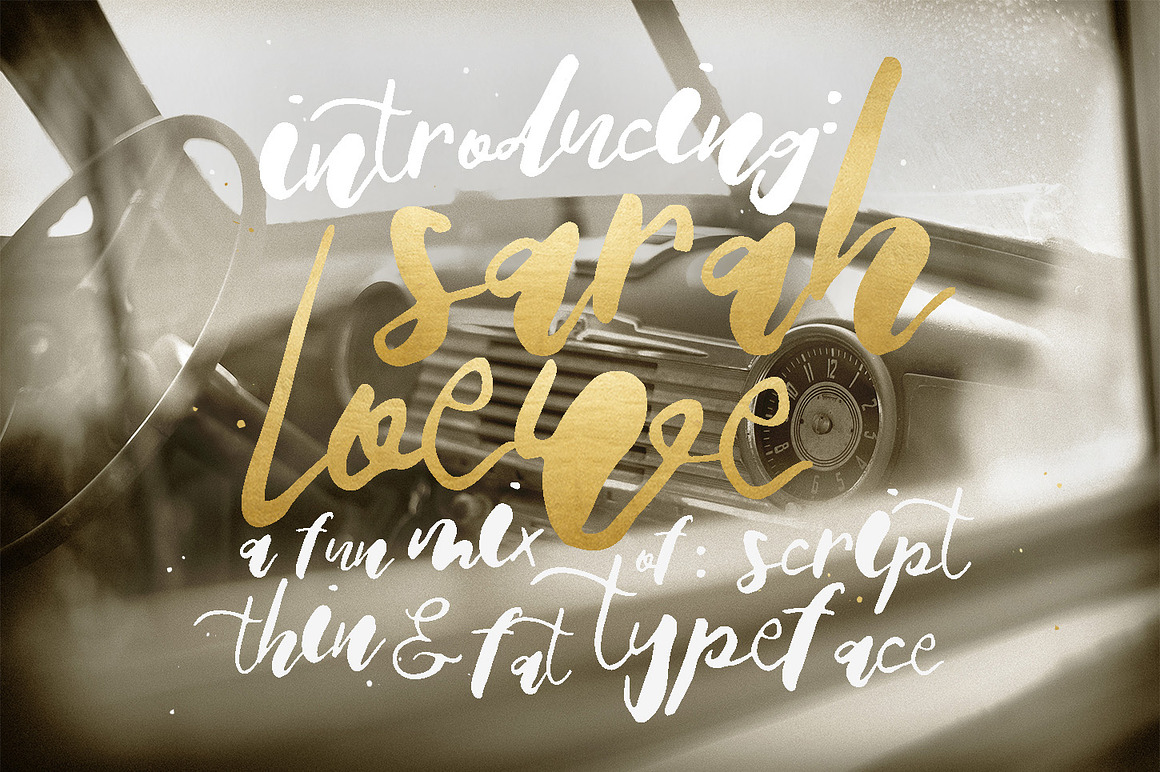
Sarah Loewe Script Font
Sarah Loewe Script Font is perfect for luxury fashion branding, high-end boutique signage, elegant wedding stationery, premium beauty product packaging, sophisticated lifestyle magazines, exclusive event invitations, upscale restaurant menus, and refined personal branding.
What makes Sarah Loewe Script Font exciting is its sophisticated elegance that embodies luxury and personal refinement. The font features graceful letterforms with flowing curves and aristocratic flourishes that create an atmosphere of exclusivity and timeless beauty. Its meticulously crafted character variations and haute couture styling communicate prestige, sophistication, and discerning taste, making every message feel like a personalized signature from the world of luxury fashion and high society.
The Sarah Loewe Script Font family includes regular weight with uppercase and lowercase letters, numerals, punctuation marks, and special characters. Premium versions often feature stylistic alternates, elegant ligatures, and decorative swashes that provide additional creative options for luxury branding applications.
This exquisite script typeface brings instant prestige and fashion-forward sophistication to any luxury project. Sarah Loewe Script Font Free Download offers exceptional value for brands targeting affluent demographics who appreciate couture craftsmanship and exclusive design aesthetics.
The luxurious character of Sarah Loewe Script Font makes it particularly valuable for designer fashion houses, luxury hotels, and premium lifestyle services. Its excellent legibility ensures brand messaging remains clear while maintaining the distinctive haute couture aesthetic that appeals to customers seeking exclusive, high-end experiences.
Fashion industry professionals appreciate how Sarah Loewe Script Font effortlessly conveys luxury and personal distinction. The font's refined proportions and aristocratic details create prestigious brand materials that establish connections with audiences who value exclusivity, craftsmanship, and sophisticated lifestyle choices.
The versatile luxury of this typeface extends to fine jewelry marketing, luxury travel services, and exclusive club branding where prestige enhances member appeal. Sarah Loewe Script Font Free Download provides creative professionals with an essential tool for developing memorable, luxury-focused designs that resonate with audiences who embrace sophistication, exclusivity, and the personalized elegance of couture fashion in today's luxury marketplace.